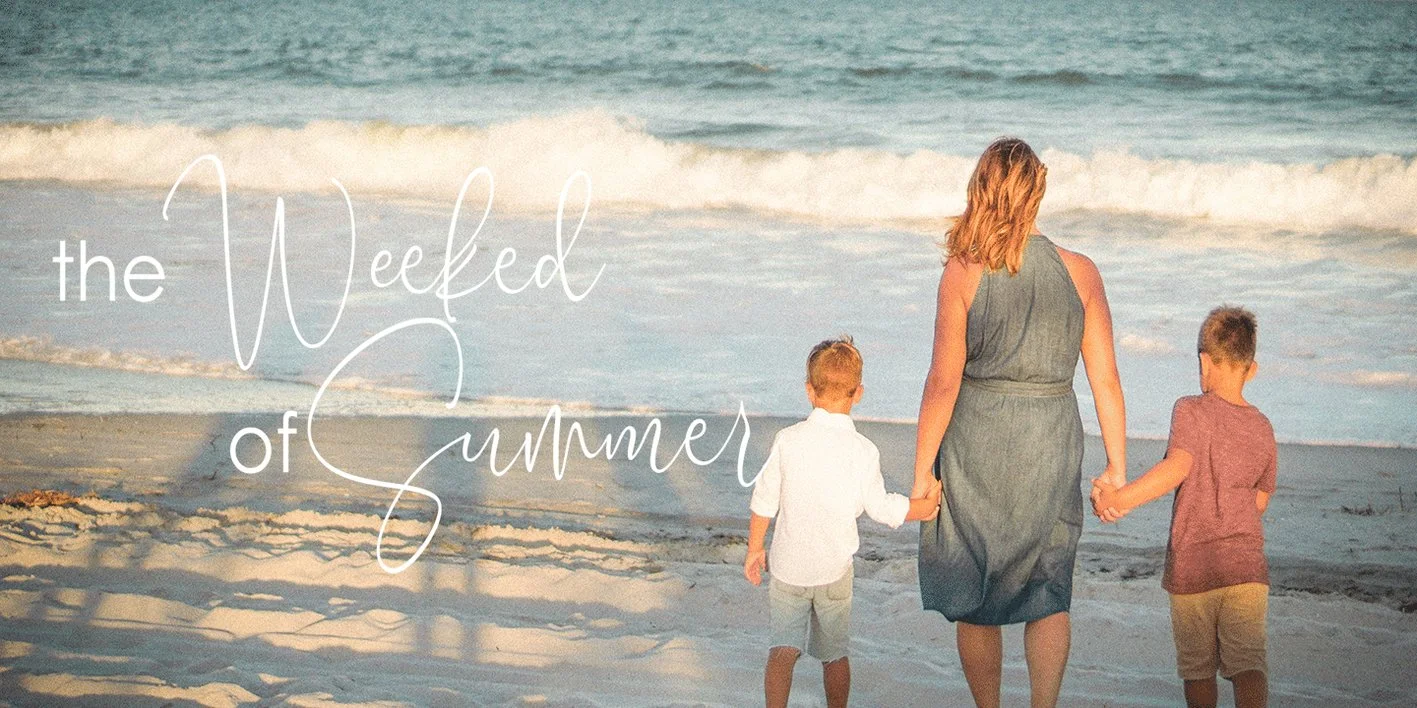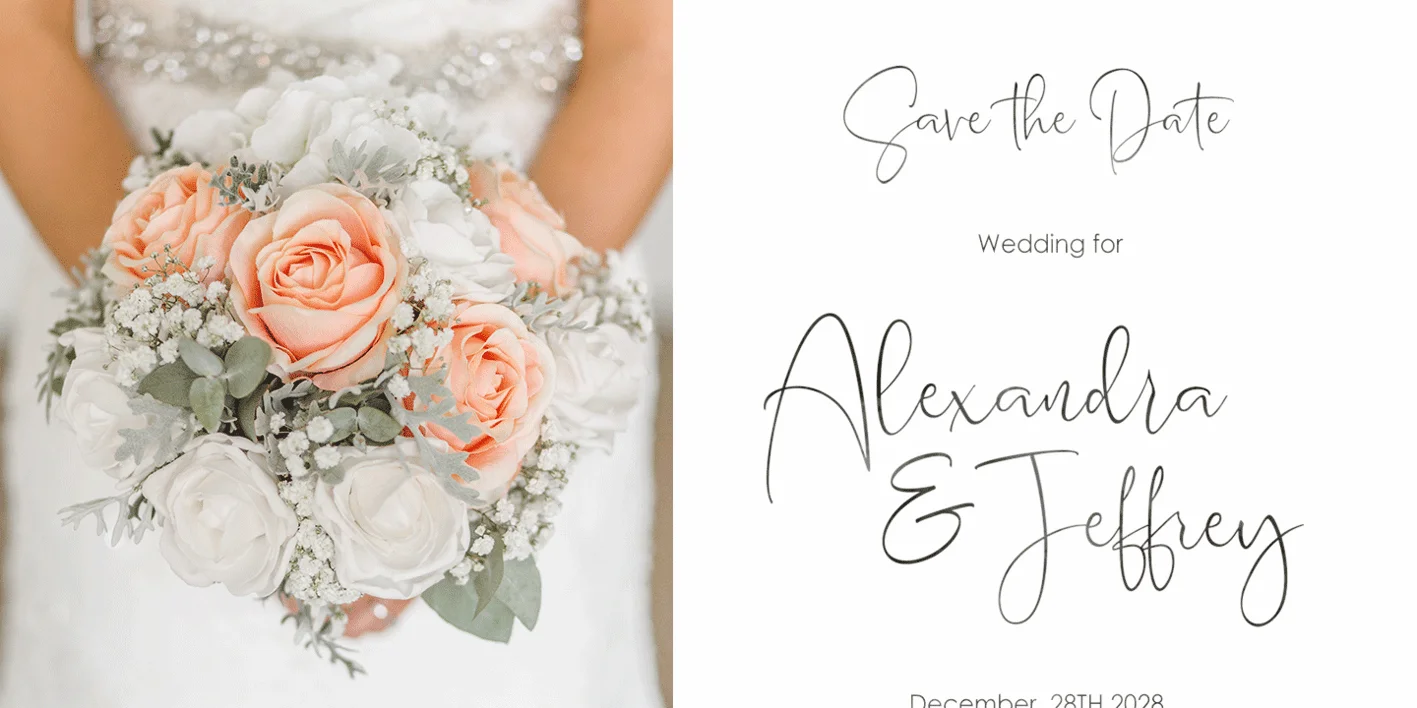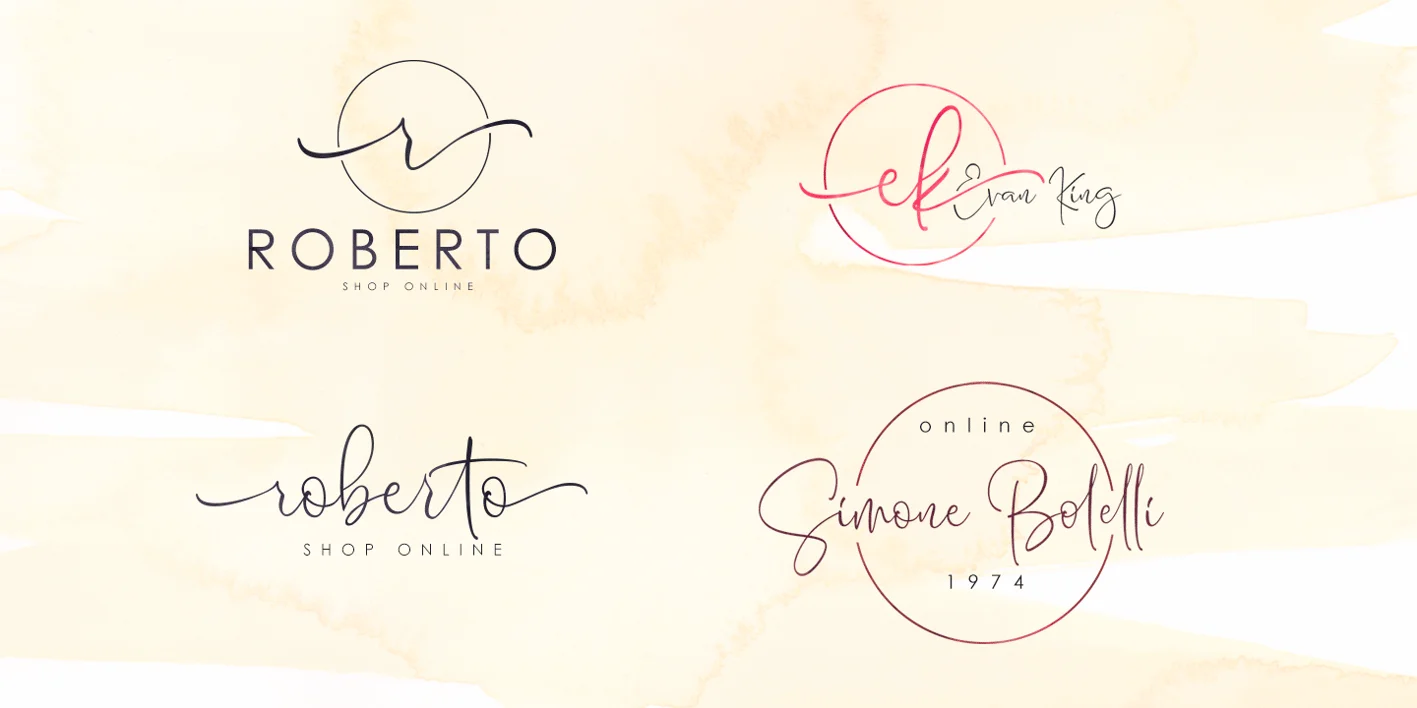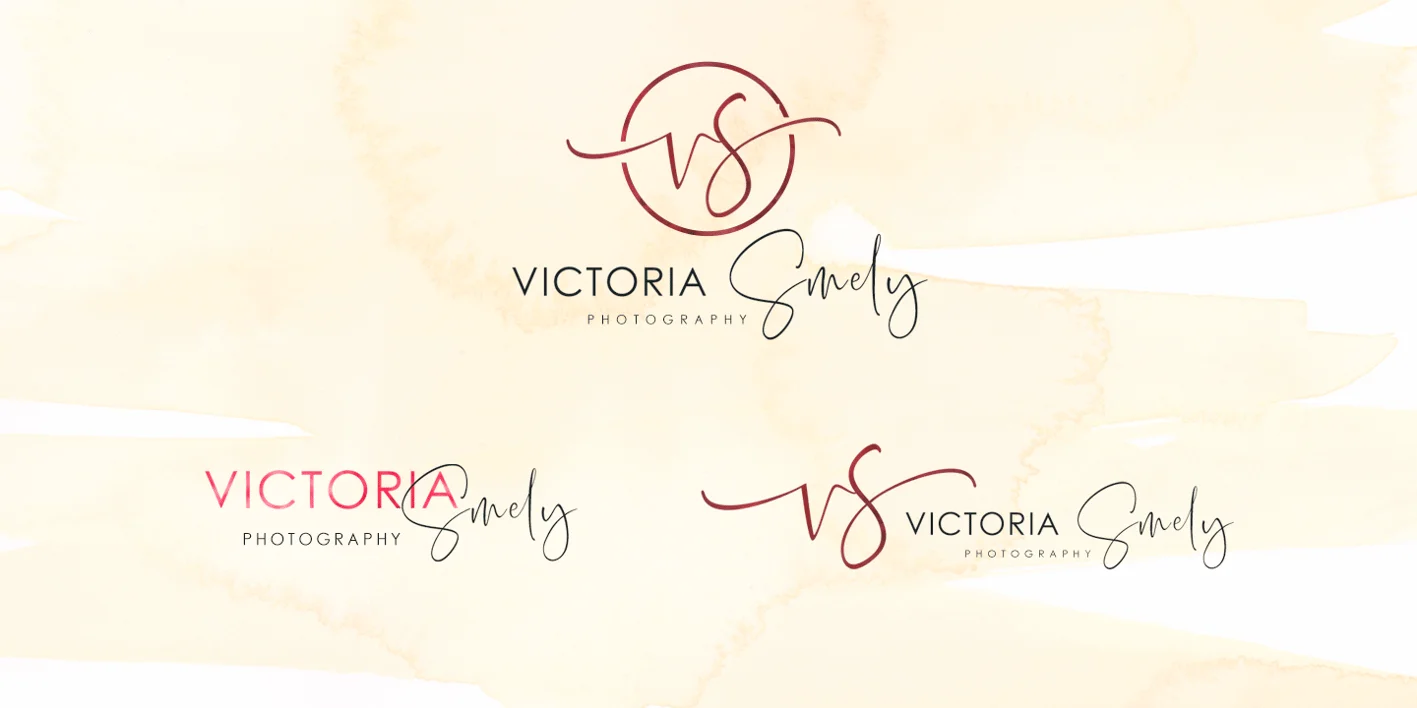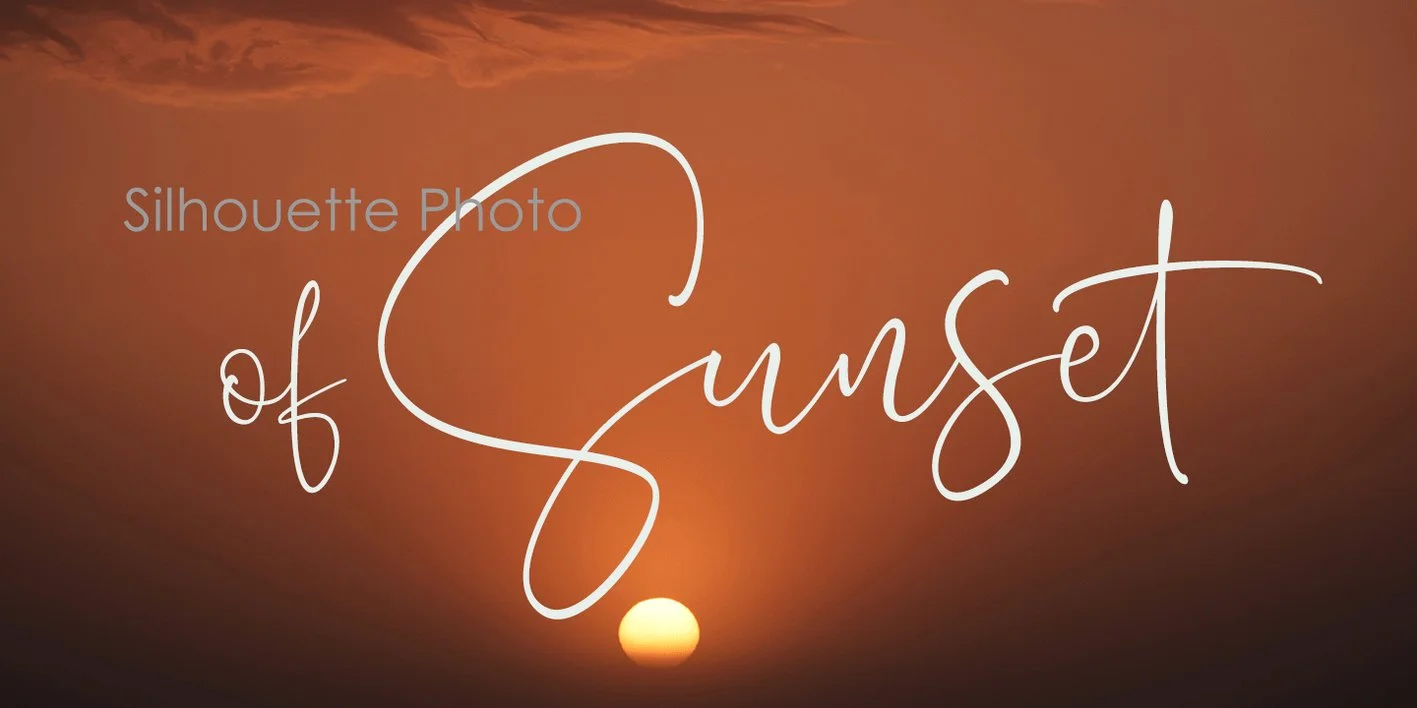
Sumantry Font
Typography shapes perception at a subconscious level. Sumantry leverages versatility across print and screen contexts to make every composition feel considered. The typeface brings a versatile sensibility to a broad range of creative disciplines, with controlled contrast that rewards close inspection that holds up whether the work is print-first or screen-first.
In practice, Sumantry proves particularly effective for signage systems, product labels, logo design, editorial layouts, packaging design. Designers reaching for it find that the type decisions feel resolved rather than laboured — a useful quality when client timelines are tight.
The range of applications extends to poster creation, annual reports, web design, advertising campaigns. That breadth is deliberate: the proportions and spacing were stress-tested across a wide range of mock briefs before the typeface was finalised.
Brand strategists building visual languages find Sumantry a reliable choice for projects that demand both personality and restraint. The design avoids the self-conscious quirkiness that dates quickly, settling instead for considered distinctiveness that holds up over time.